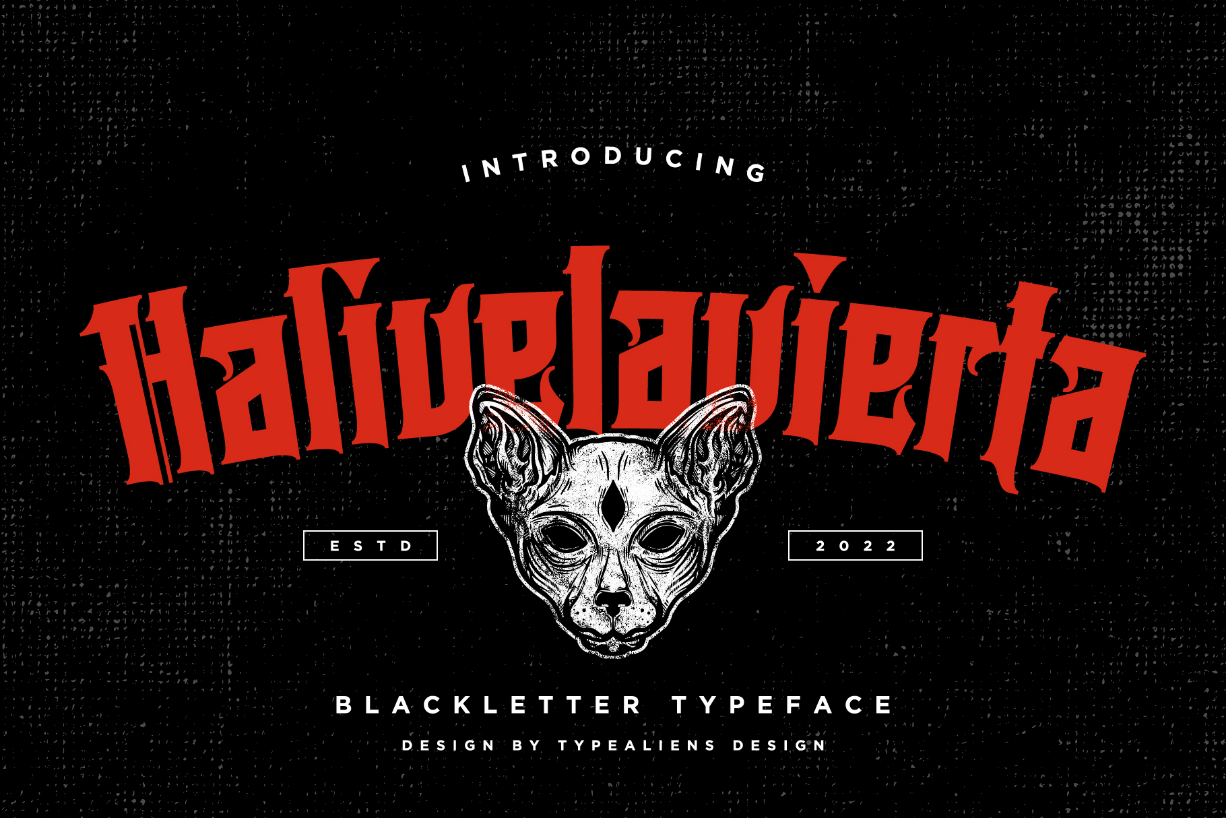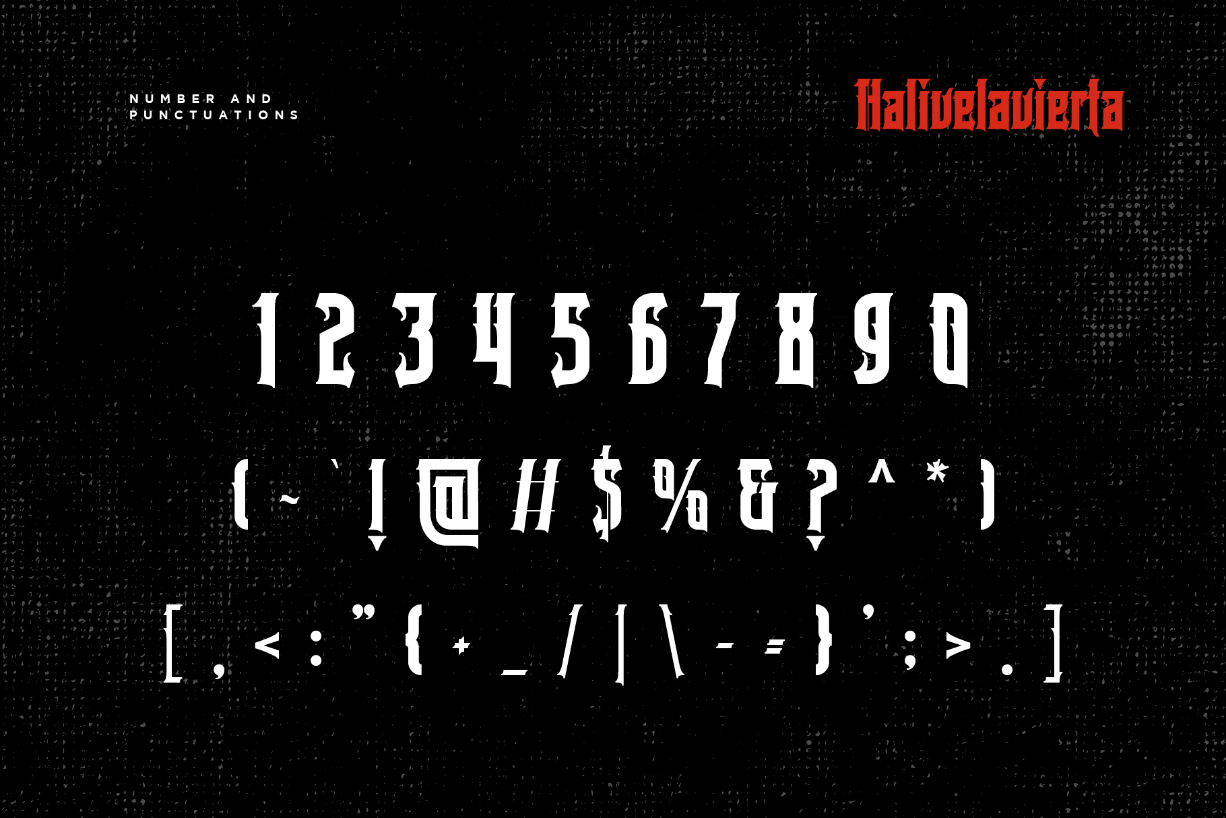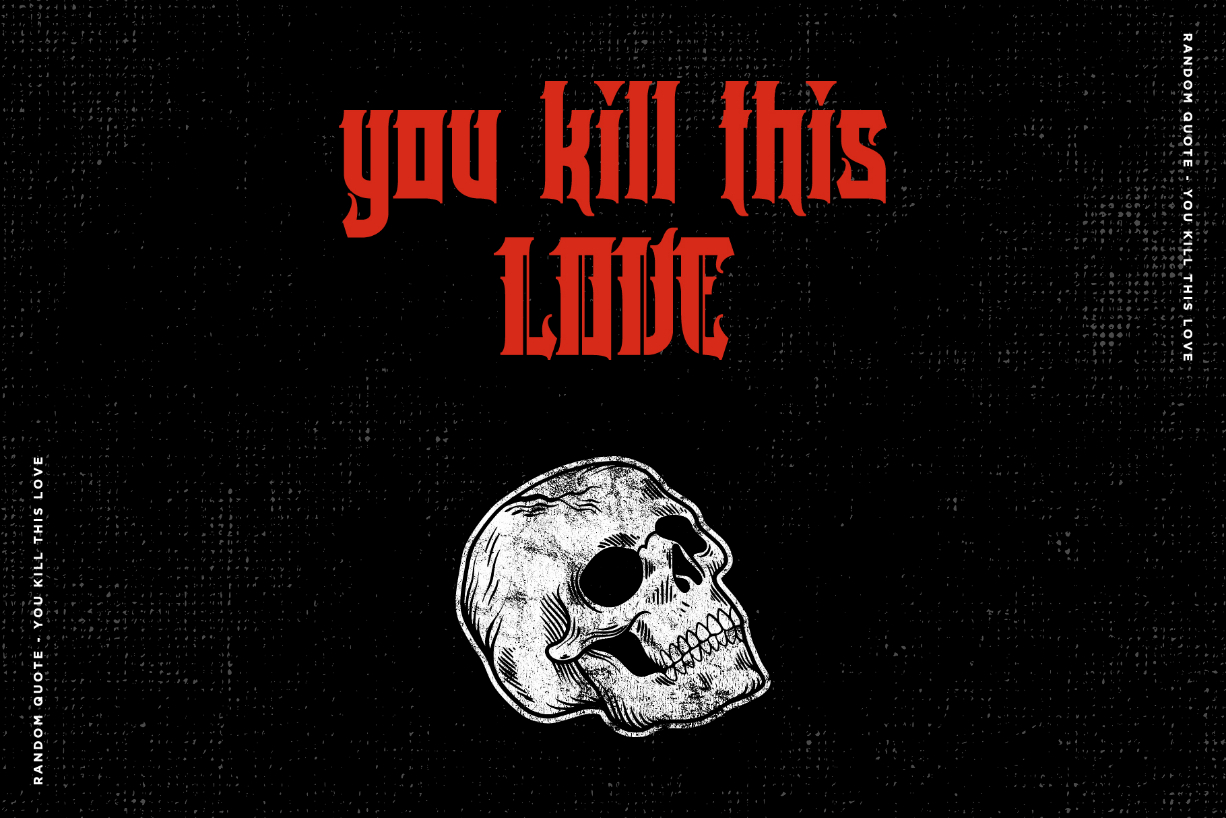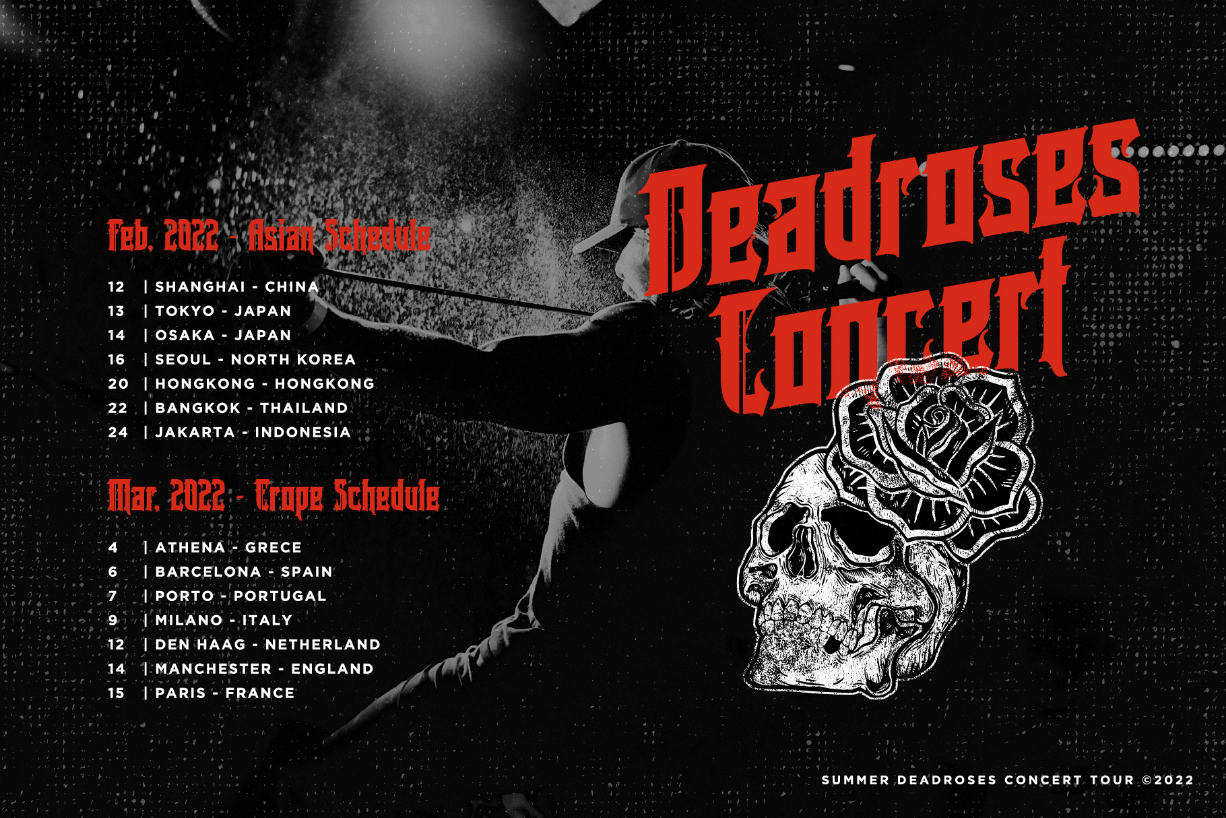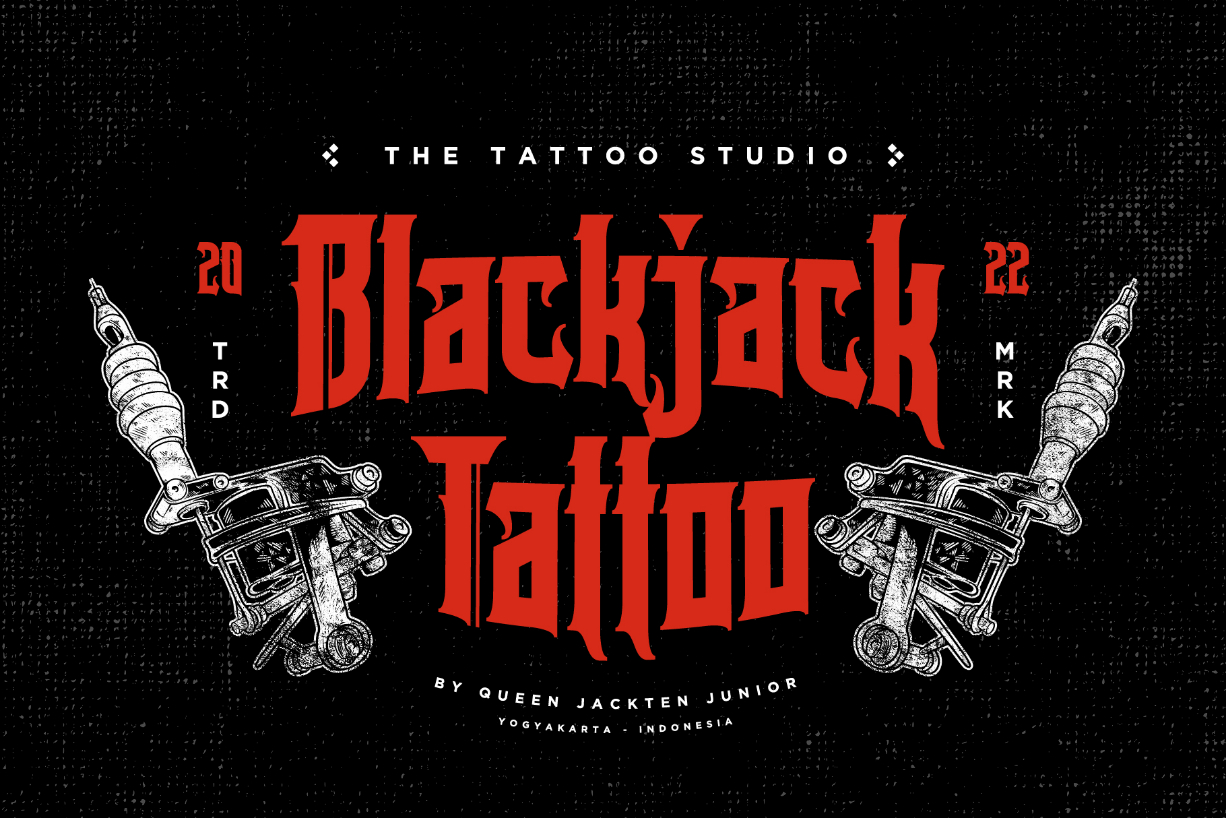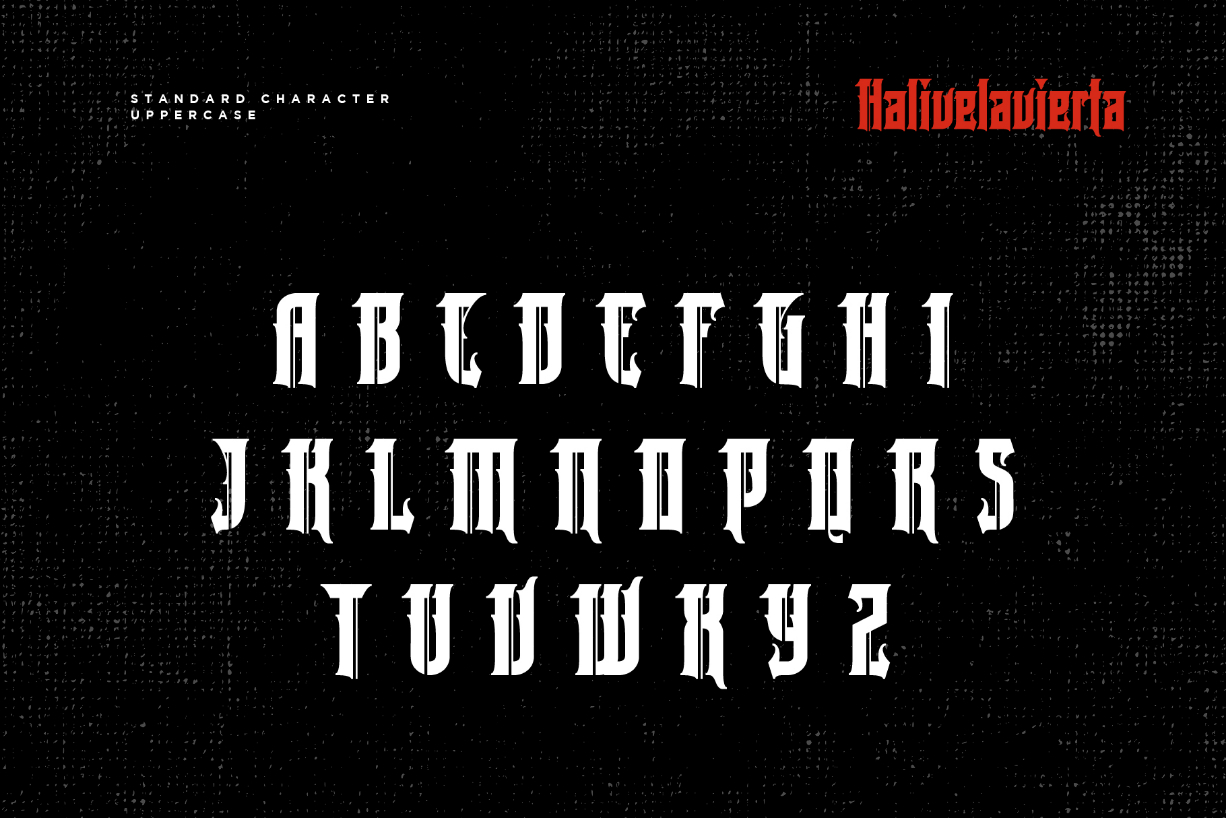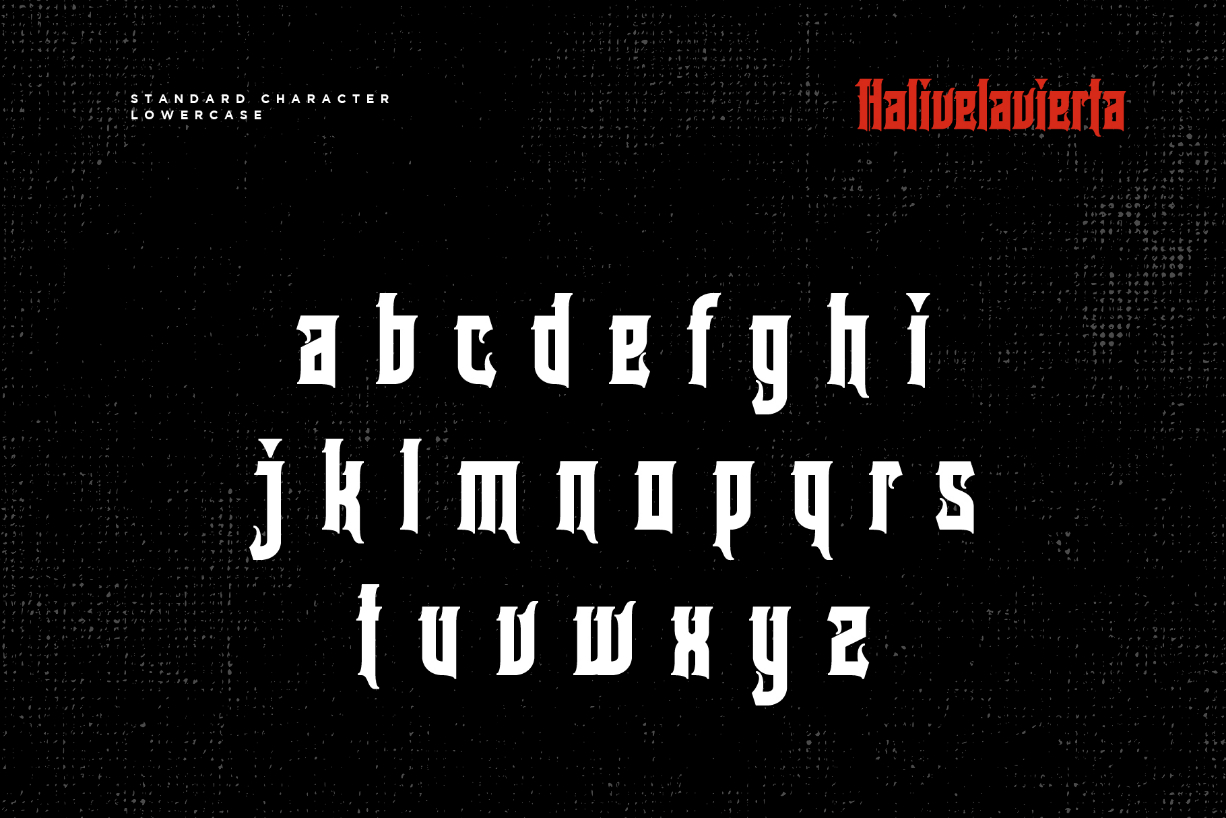
Halivelavierta Font
About Halivelavierta Font
Halivelavierta is a combination font between blackletter and serif, resulting in a typeface with a slightly gothic feel, vintage, but also suitable for modern designs.